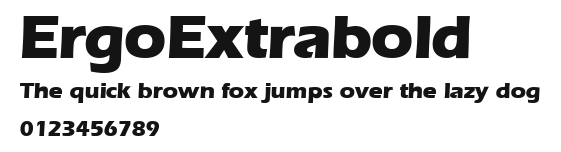
ErgoExtrabold Preview
About ErgoExtrabold.ttf
ErgoExtrabold.ttf is a modern, elegant sans-serif font designed for ultimate readability and visual harmony. Perfect for branding, headlines, web design, and print materials.